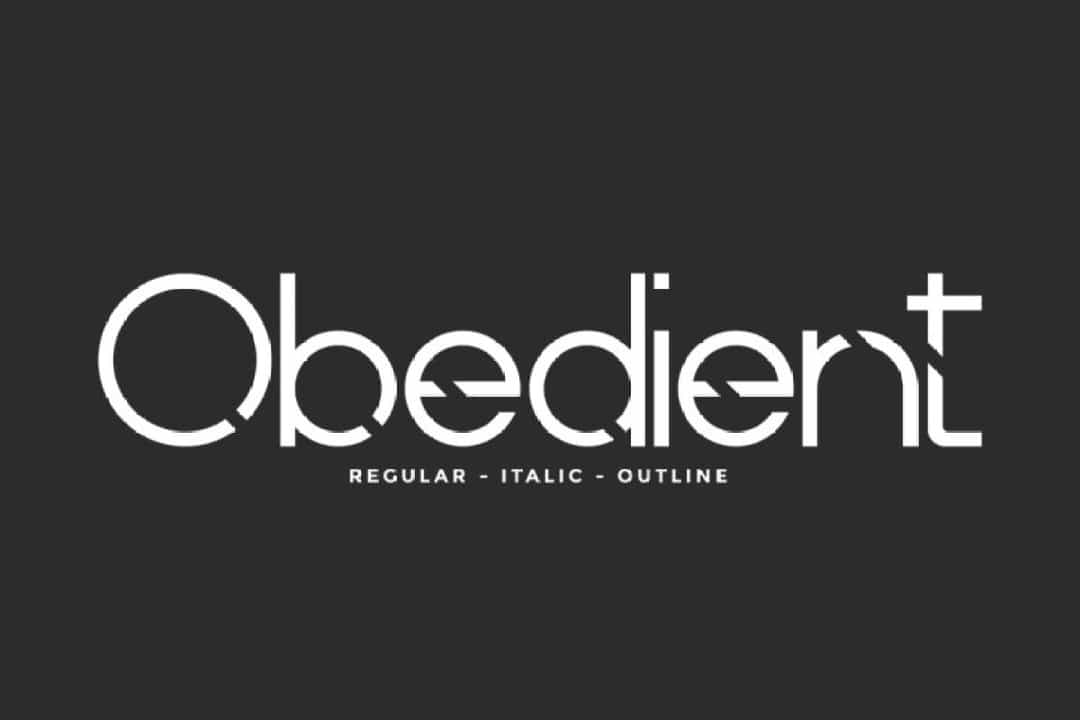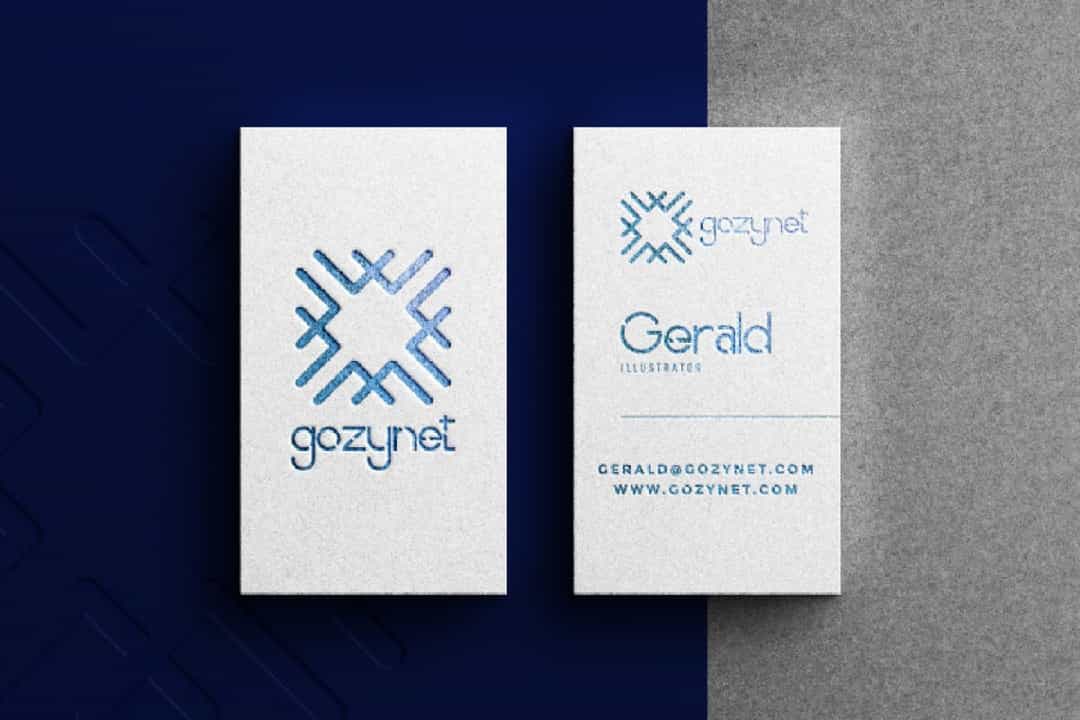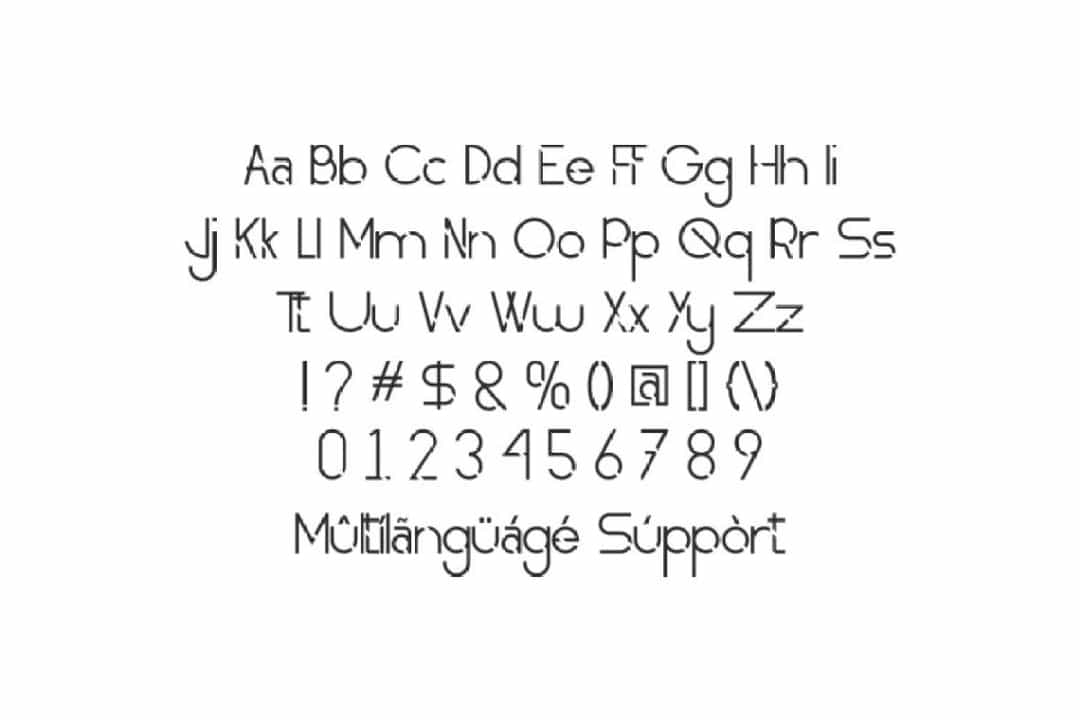
Obedient is a modern sans serif font which displays negative space surrounding its designs. This font looks amazing in any setting and can be used for prints, logos, collages, body text printing and much more!